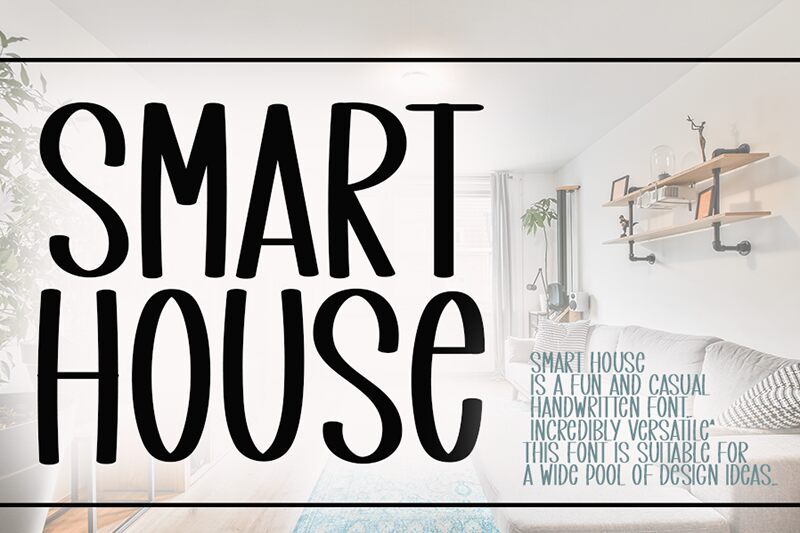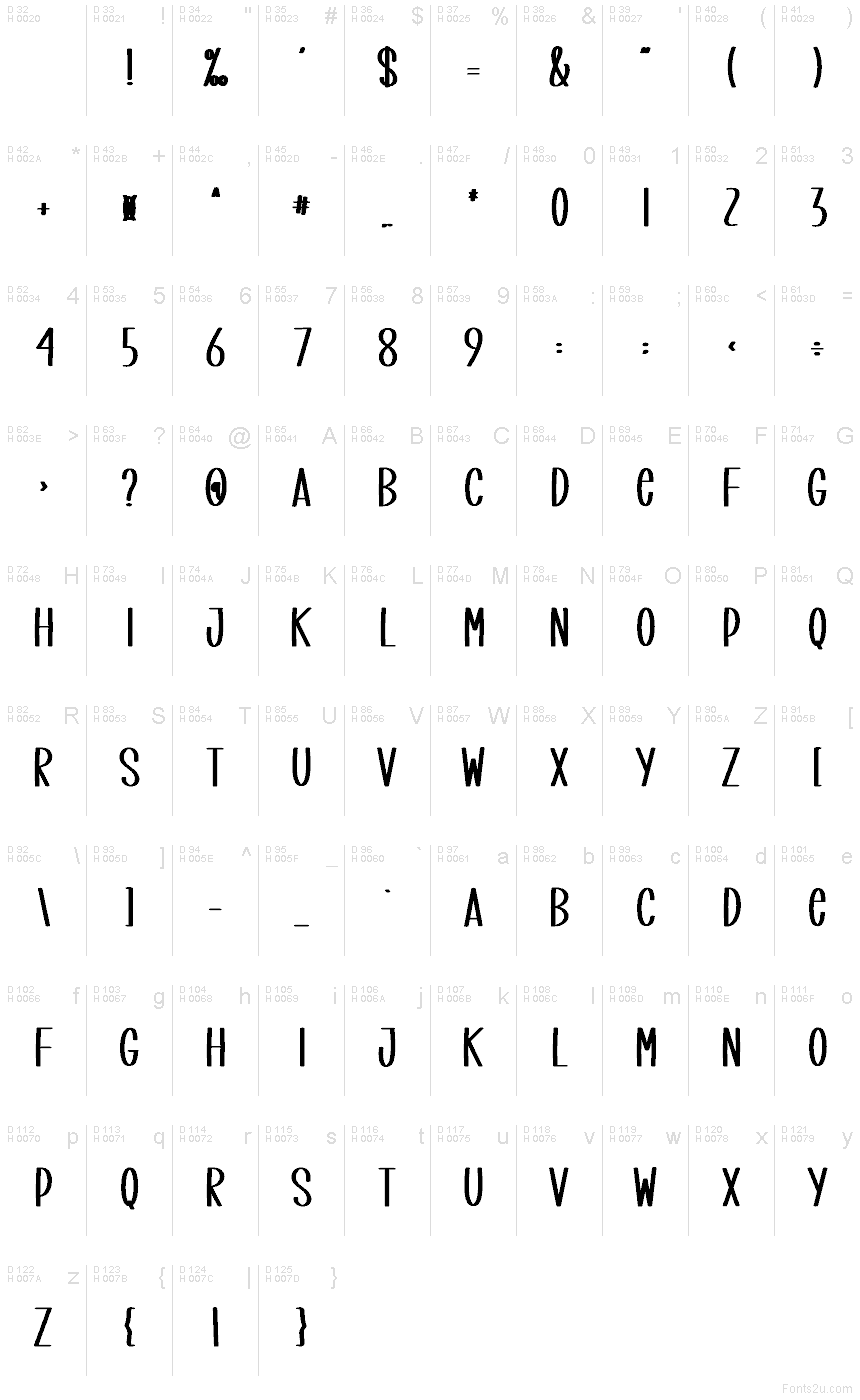
Smart House
Smart House font by Creatype Designer is a handwritten condensed font with an expressive and contemporary appeal. Its organic shapes and unique character forms offer a casual impression with a slight retro influence, making it stand out in various design contexts.
This free handwritten font is ideal for logos, branding projects, social media graphics, product packaging, stationery designs, posters, invitations, greeting cards, book covers, and website headlines. Its versatile and engaging style enhances any creative project seeking a modern yet timeless touch.